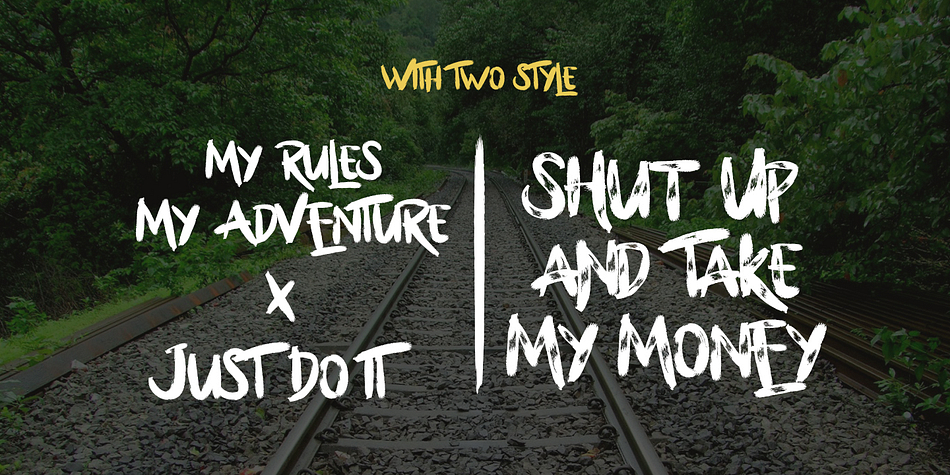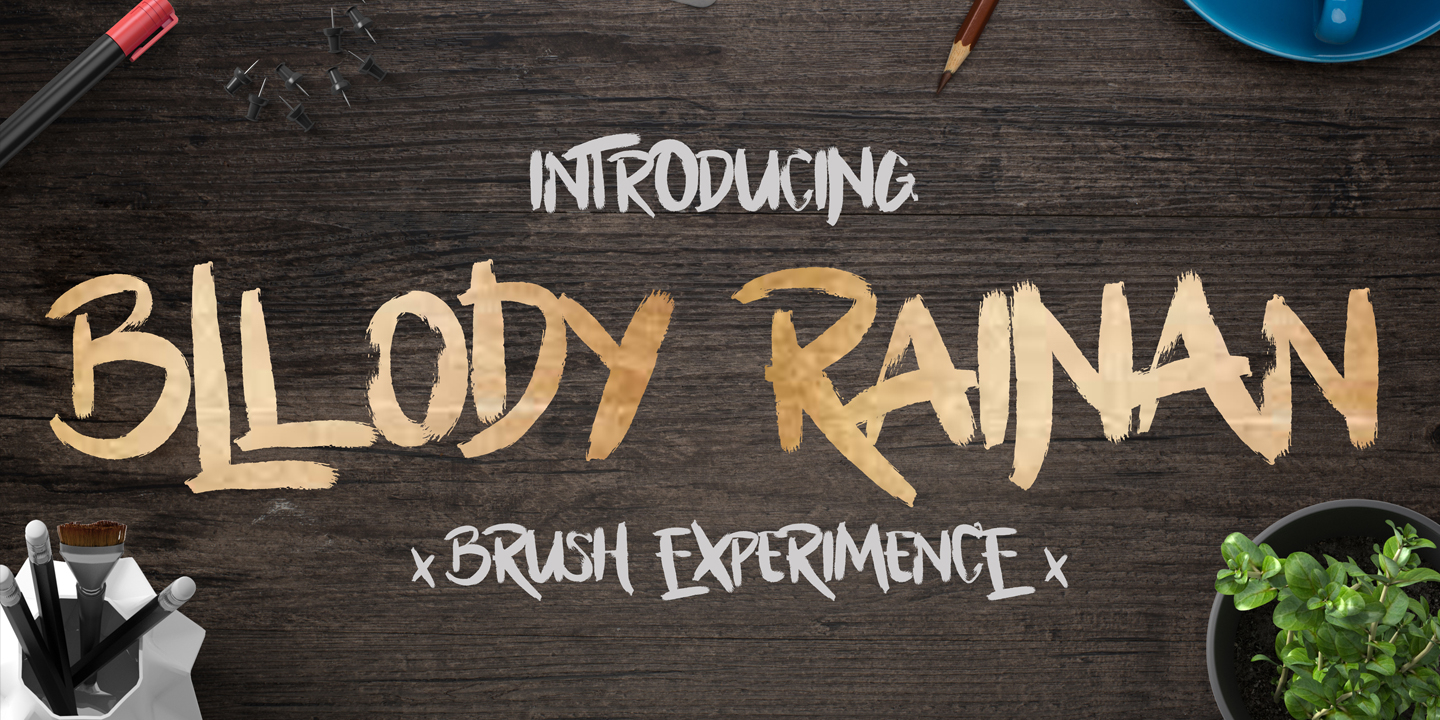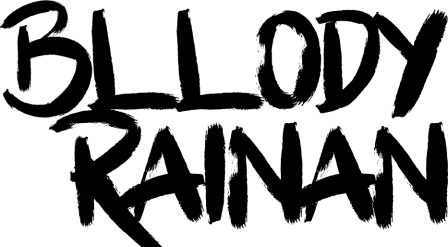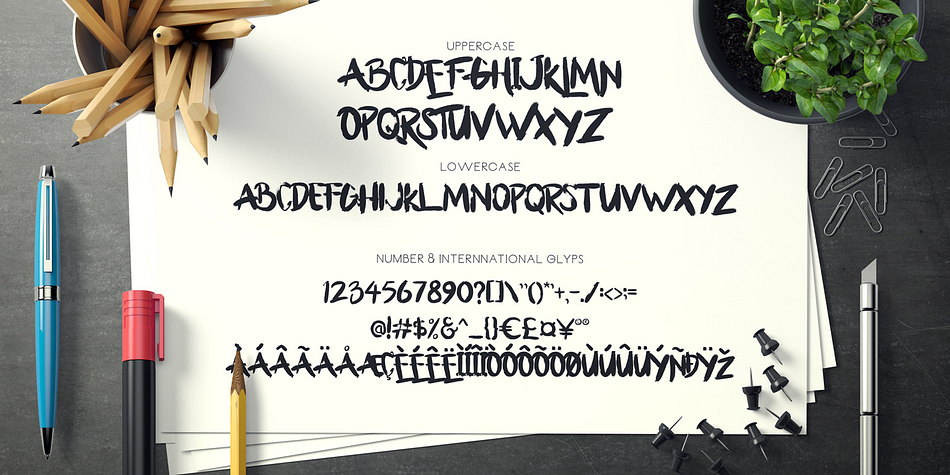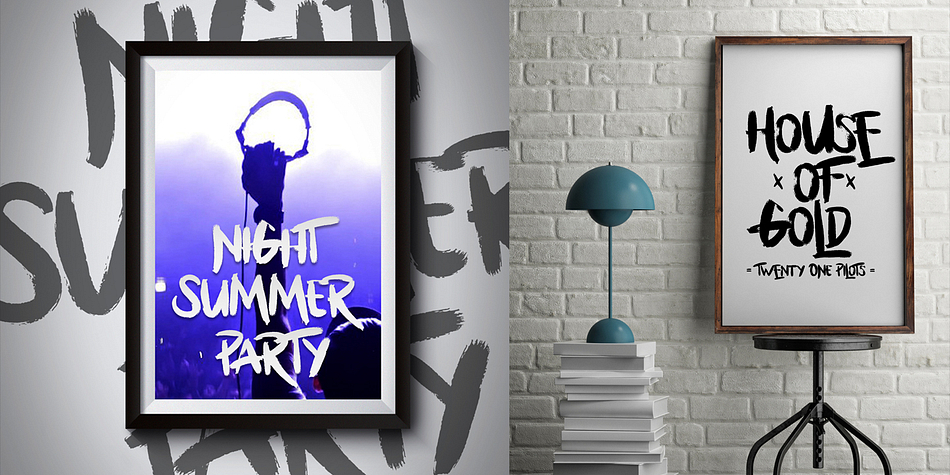
Bllody Rainan is a grunge and brush display font family. This typeface has four styles and was published by madeDeduk.
Hello I’m really excited to introduce Bllody Rainan is a Brush typeface font with two style regular and rough inspired from watercolor splash. suitable to create any branding, product packaging, invitation, qoutes, t-shirt, label poster etc.